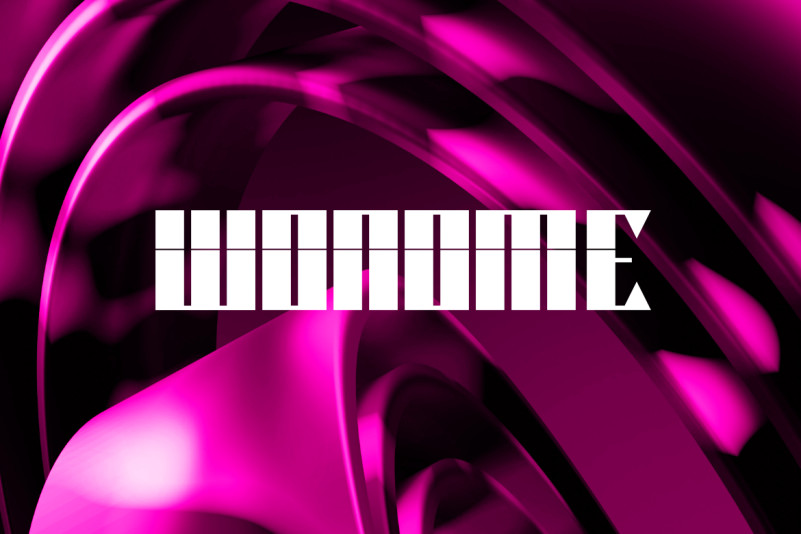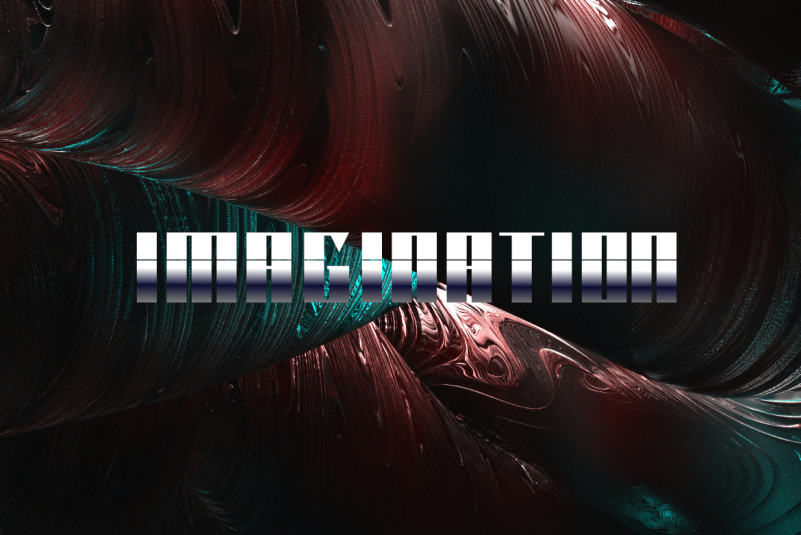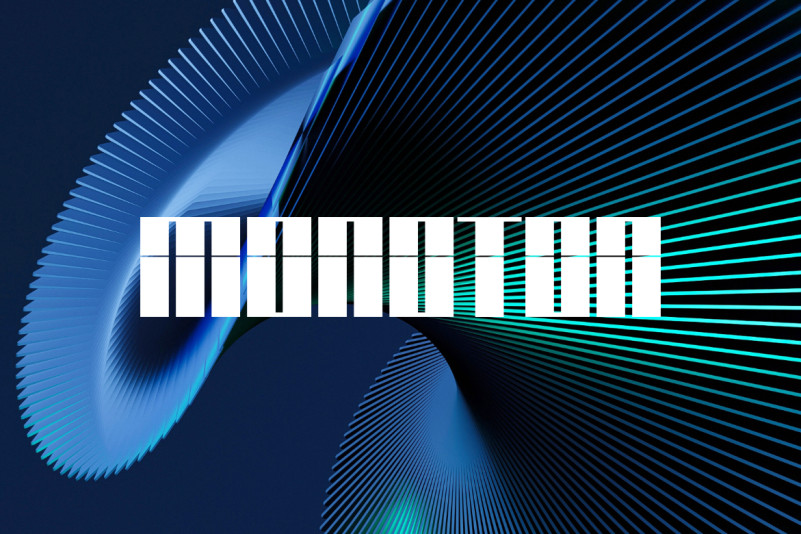
Wonome Pro Font
Wonome Pro Display Font, this font was created for all forms of business and branding such as clothing, logos, skate boards and others according to your needs.
Wonome pro is a update version the style is bold and robotic display font.